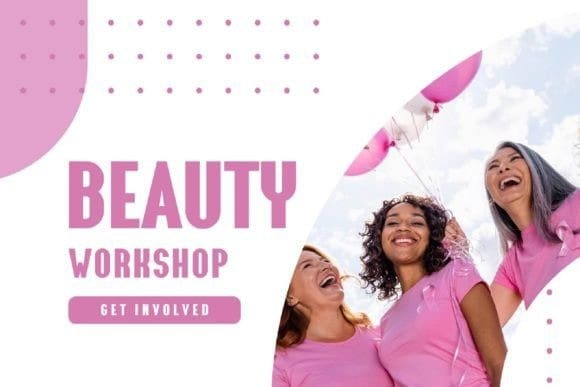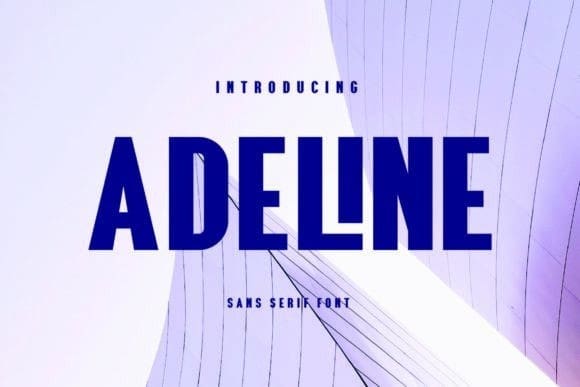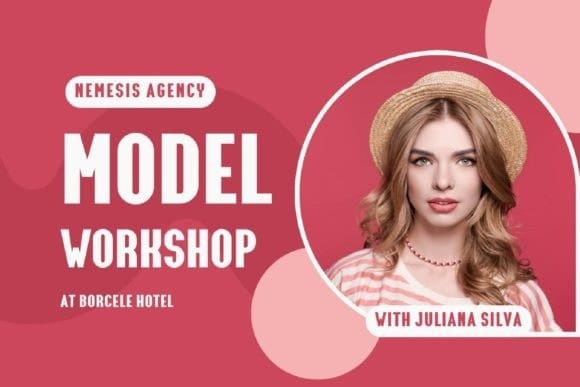
Adeline Sans Font
Adeline Sans Font, inspired by the famous minimalist logo perfect for the purposes of designing templates, brochures, videos, advertising branding, logos, invitation, layout design, elegant crafting, beauty design and other.